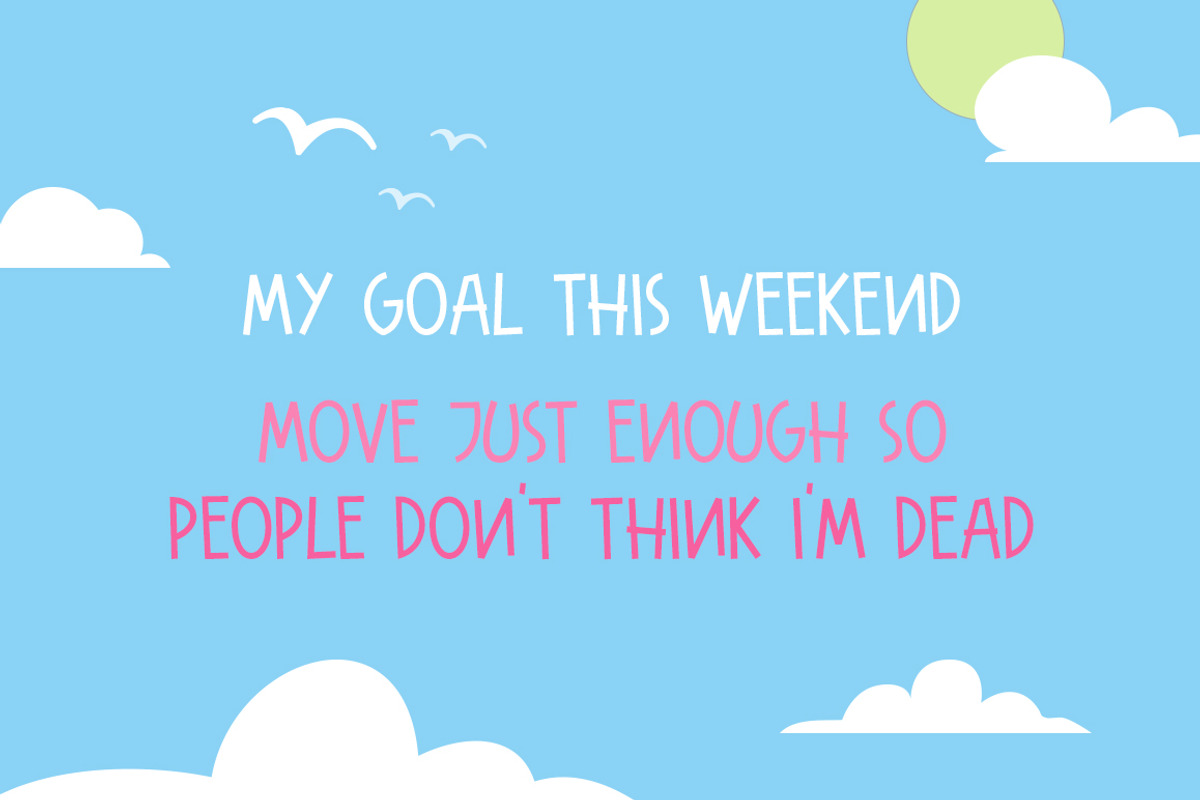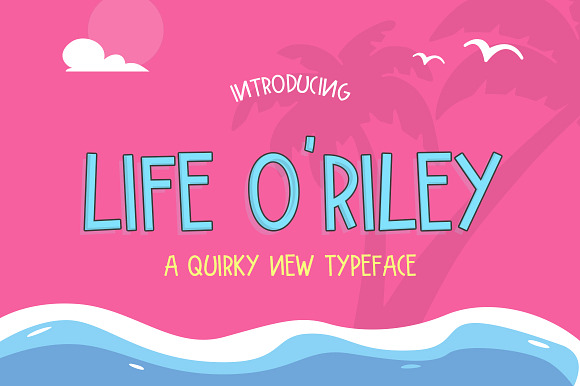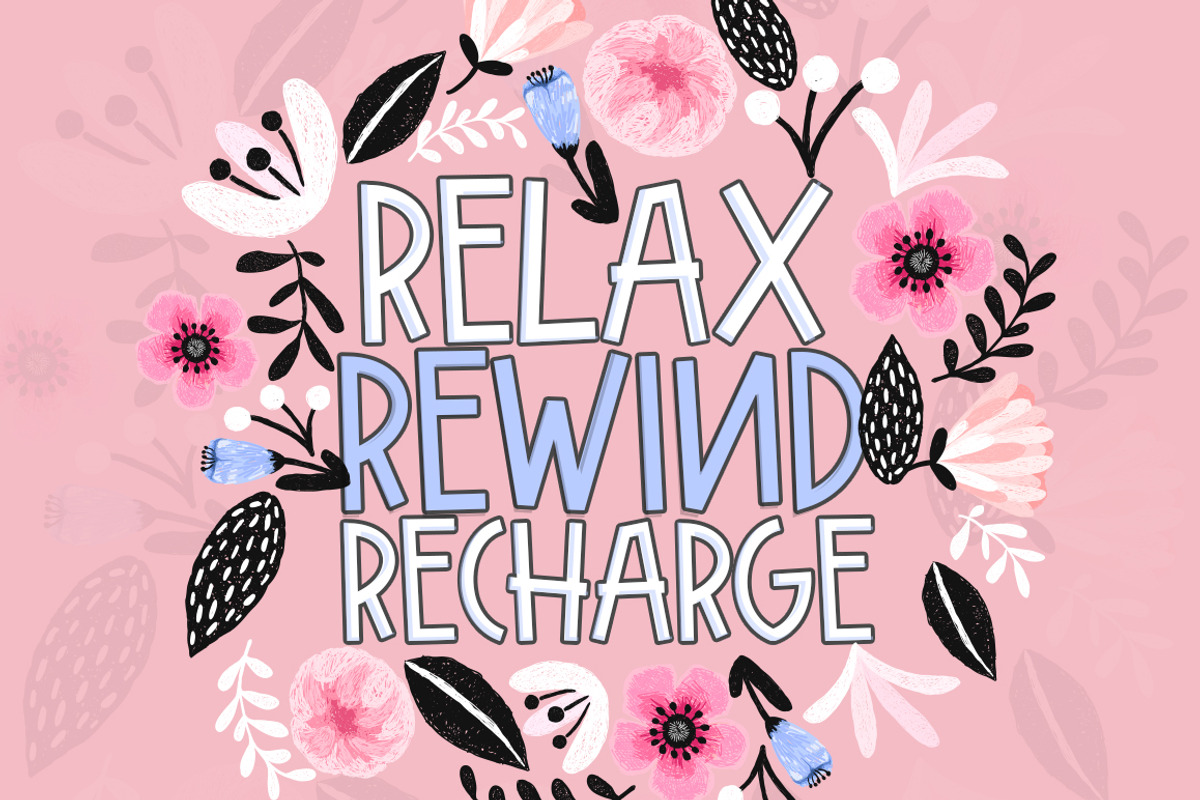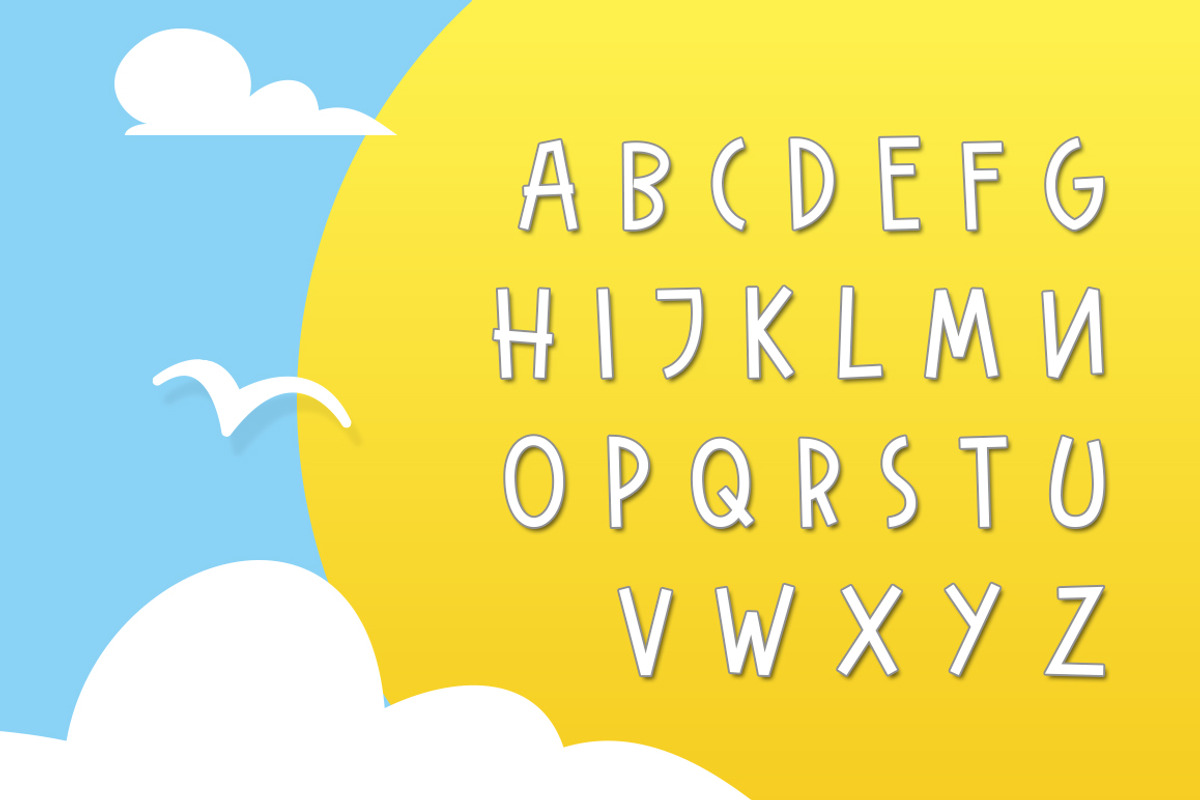
Life O'Riley Font
Introducing Life O’Riley! A quirky and unique font that is jam packed full of character! Useful for funky headers and also legible in large blocks of text. This font also pairs well with others so try it with some of your faves!
Why Life O'Riley Font is worth a look
Life O'Riley Font by Salt & Pepper Designs fits naturally into Branding, posters, packaging, typography.